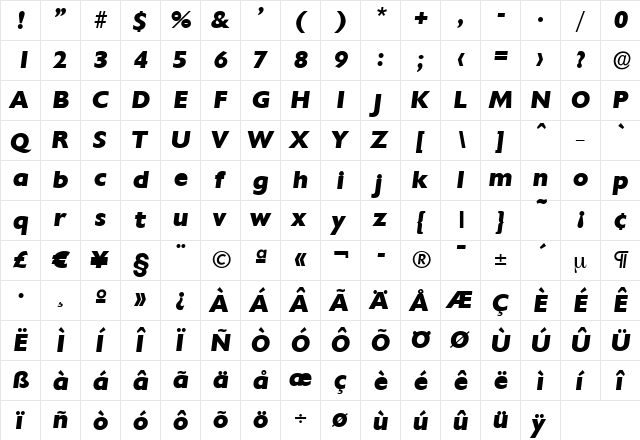
DavidBecker-ExtraBold Italic
Design Context for DavidBecker-ExtraBold Typeface
DavidBecker-ExtraBold is a composed and adaptable typeface that performs quietly and consistently across a wide range of design contexts. The dynamic lean of this cut emphasises speed and emphasis in any layout. The heavy weight commands attention and anchors typographic hierarchies.
Pro Tip: Use DavidBecker-ExtraBold for emphasis, pull quotes, and subheadings where its slanted energy can add rhythm to the layout.